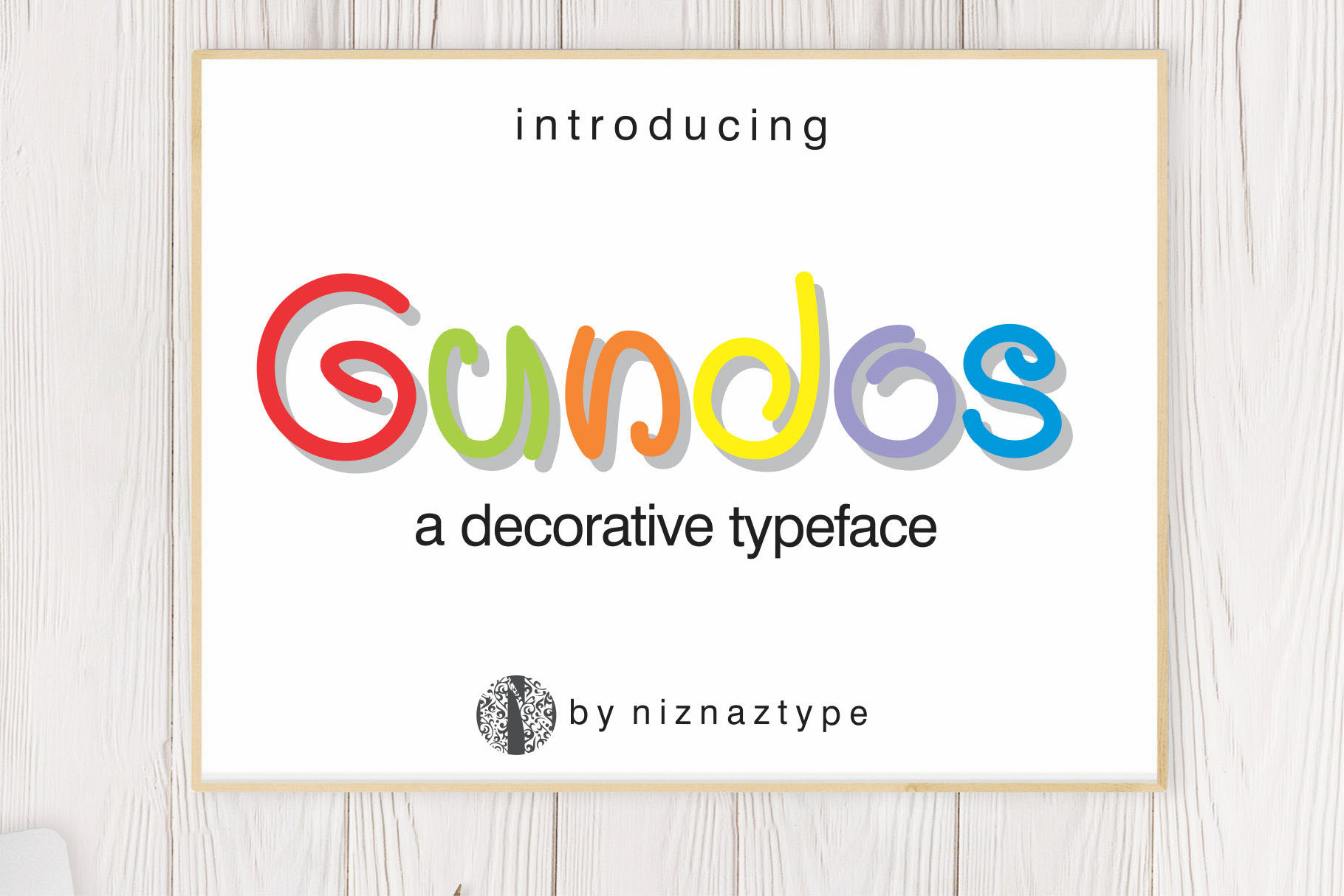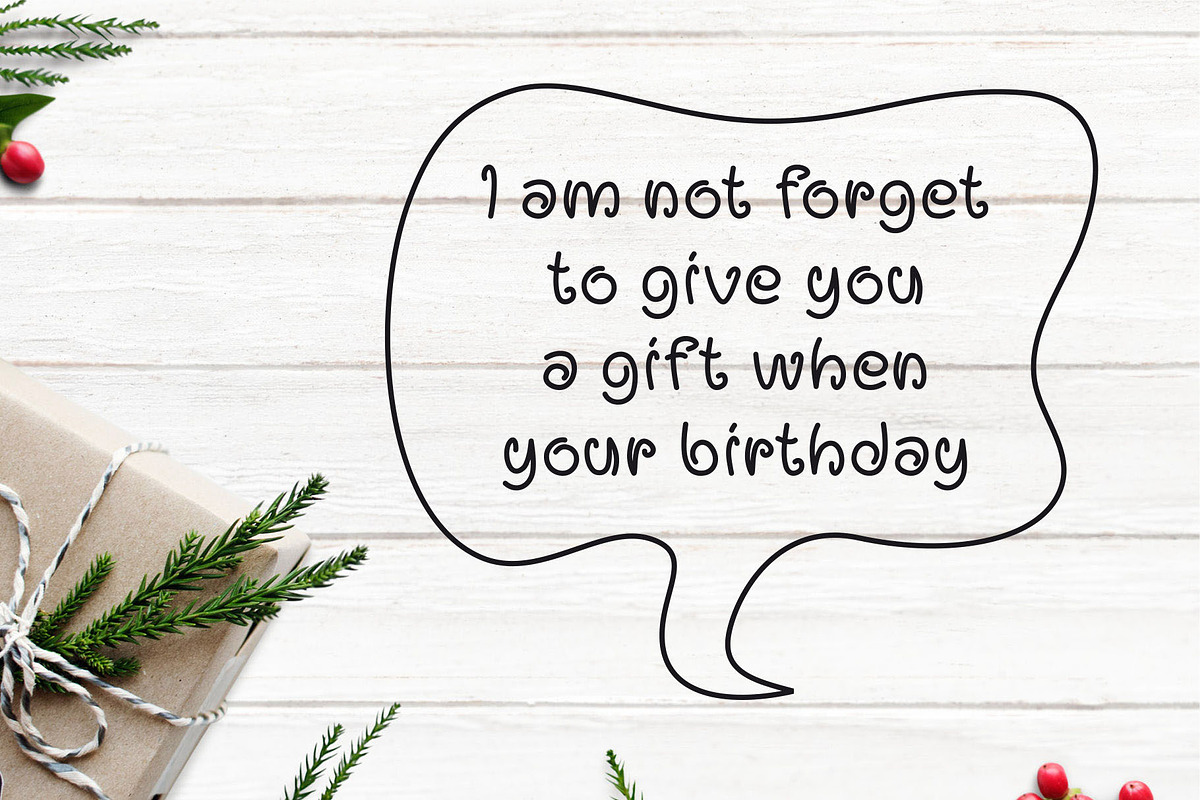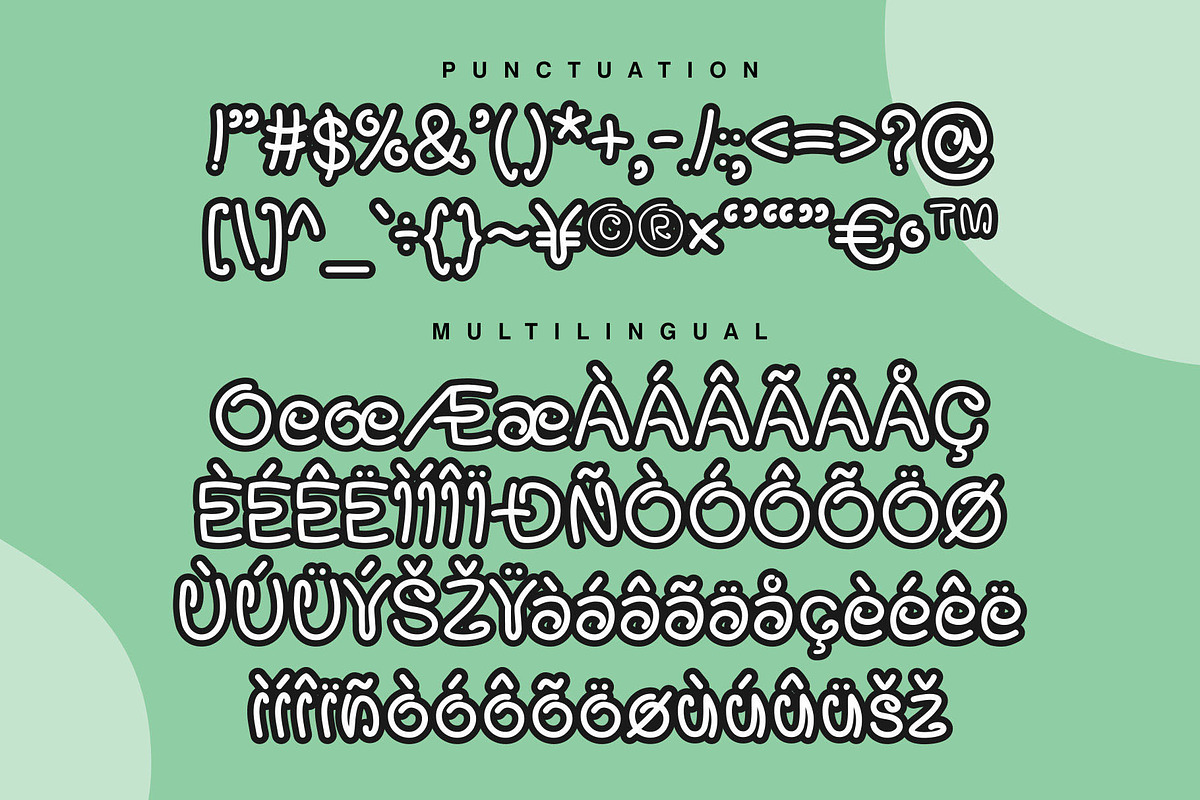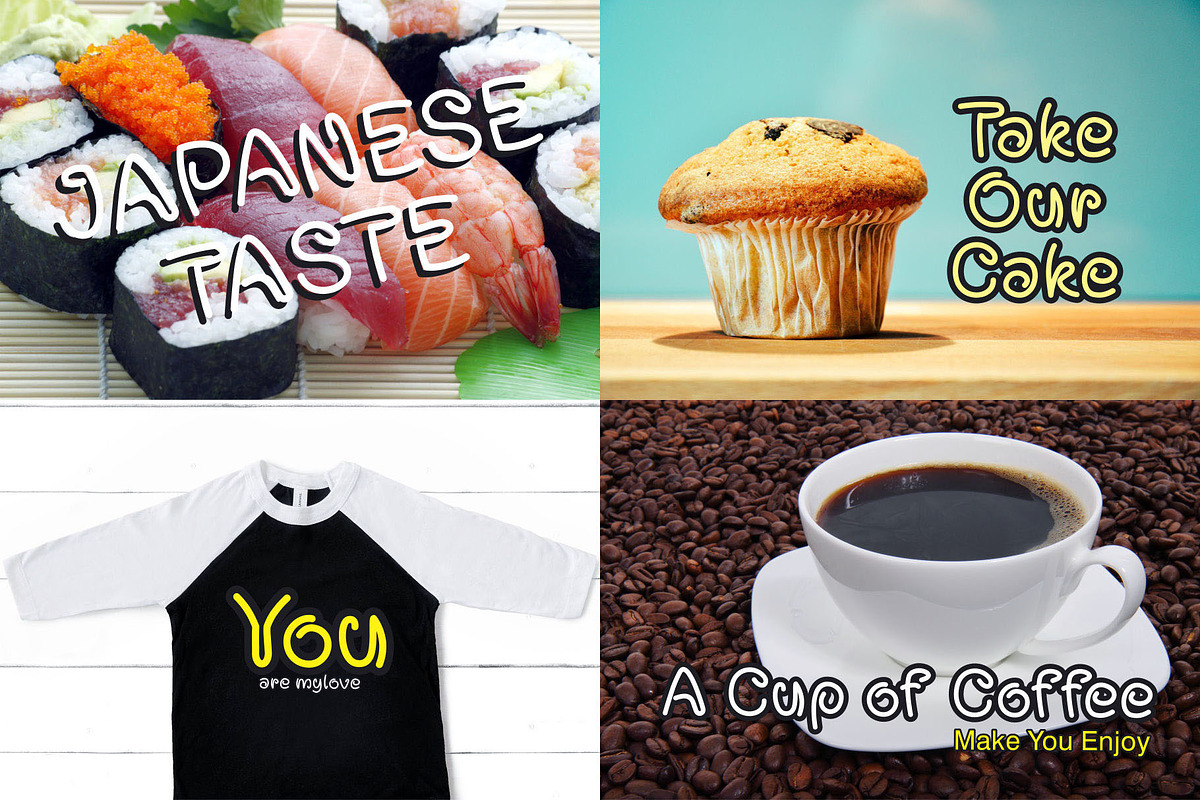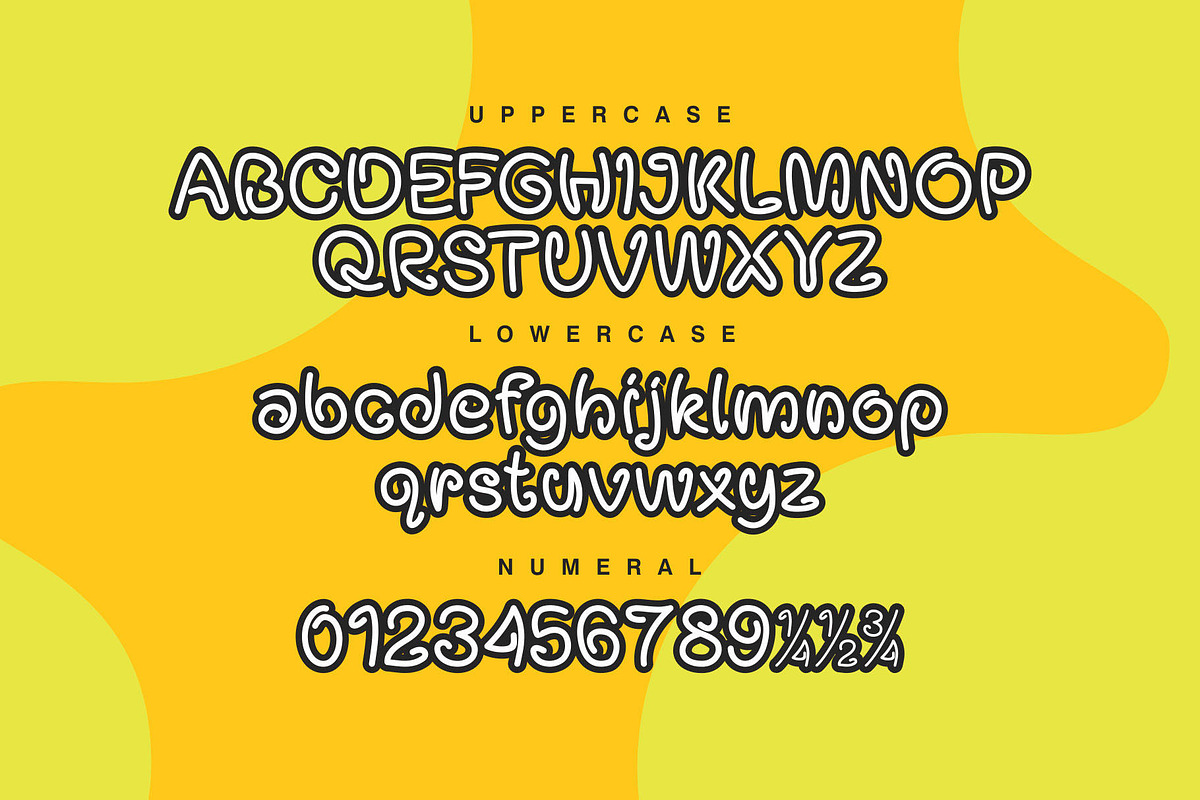
Gundos - Decorative Font
Gundos is a decorative typeface. This font created base on a rounded corner and thick lines. Simple and cute style of this font designed. Gundos will give a different taste in your design. Gundos consist of :
- Numeral and punctuation